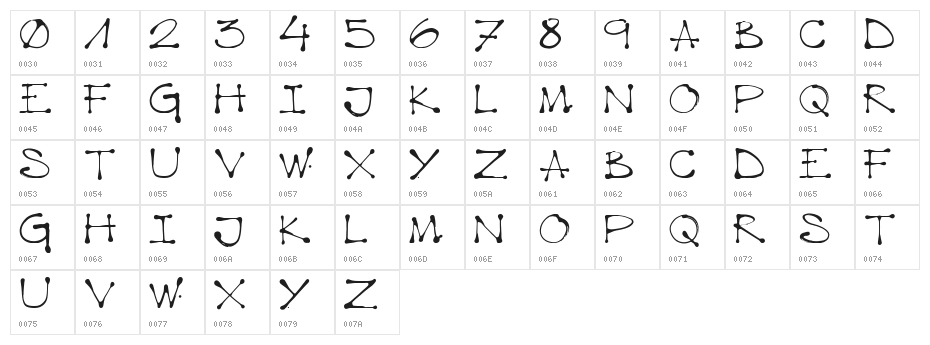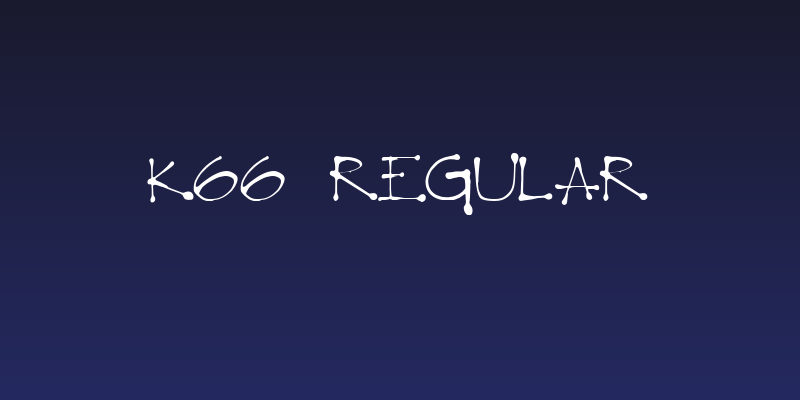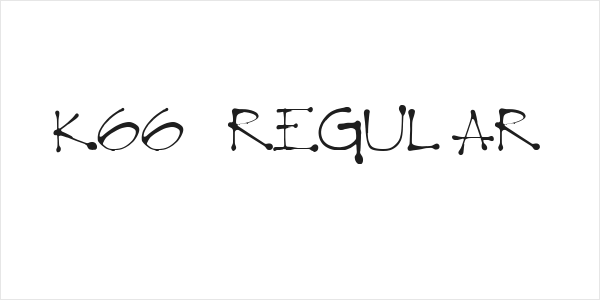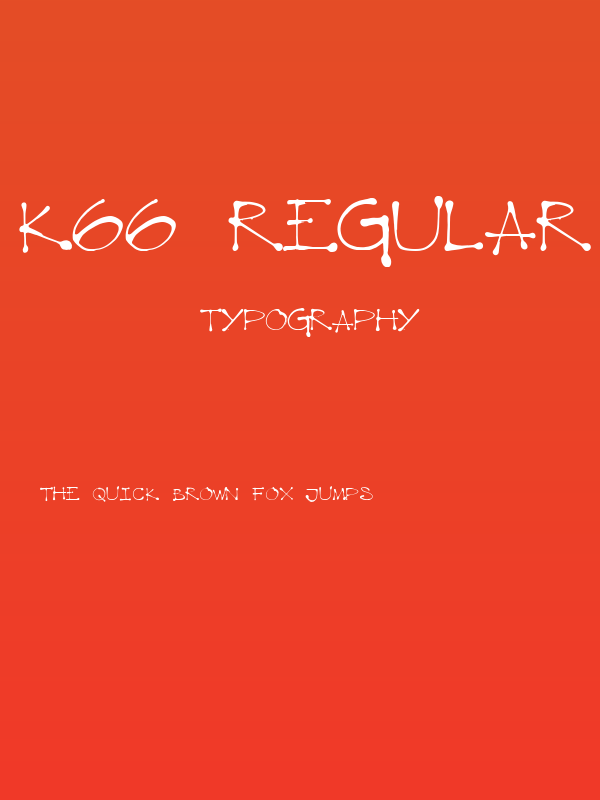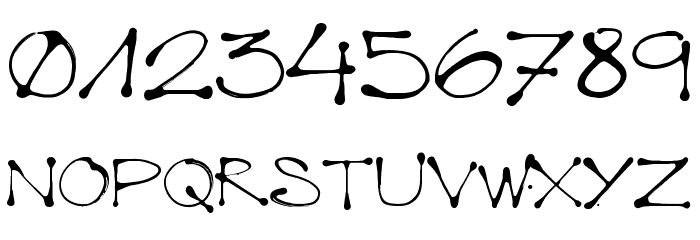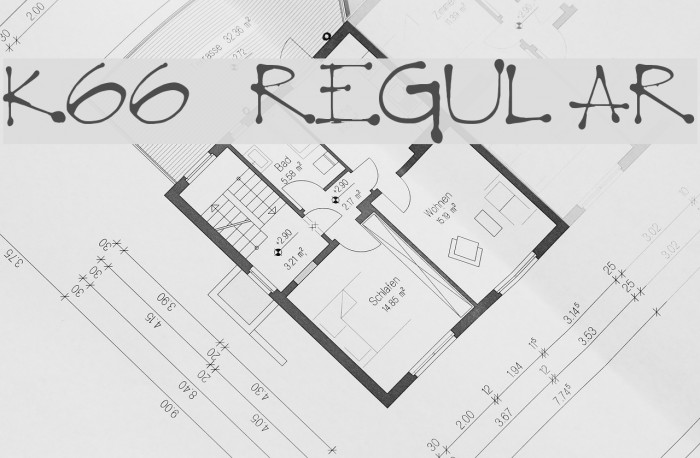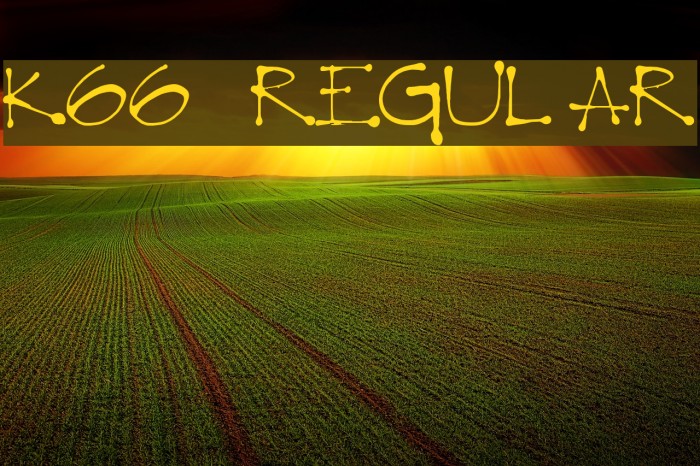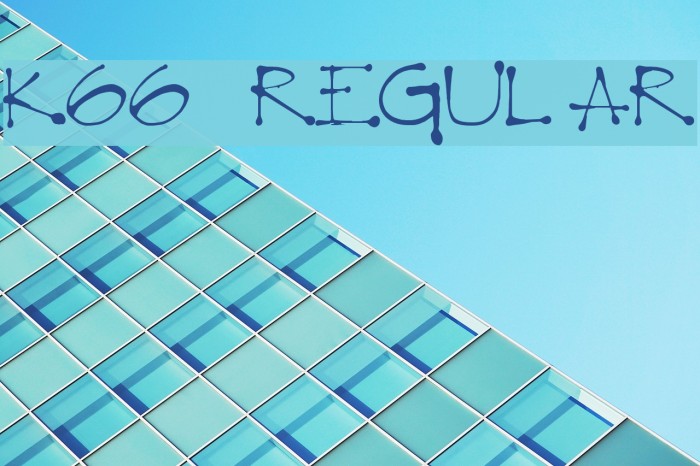
K66 Regular Font
K66 Regular Description
This font features a unique and playful design with a handwritten style. Each character is crafted with a whimsical touch, incorporating small dots at the ends of strokes, giving it a distinctive and artistic appearance. The letters are slightly irregular, adding to the charm and informal feel of the font. It maintains a consistent stroke width, which contributes to its legibility despite the decorative elements. The overall look is both creative and approachable, making it suitable for projects that require a personal and friendly tone.
K66 Type - Andreu Benítez